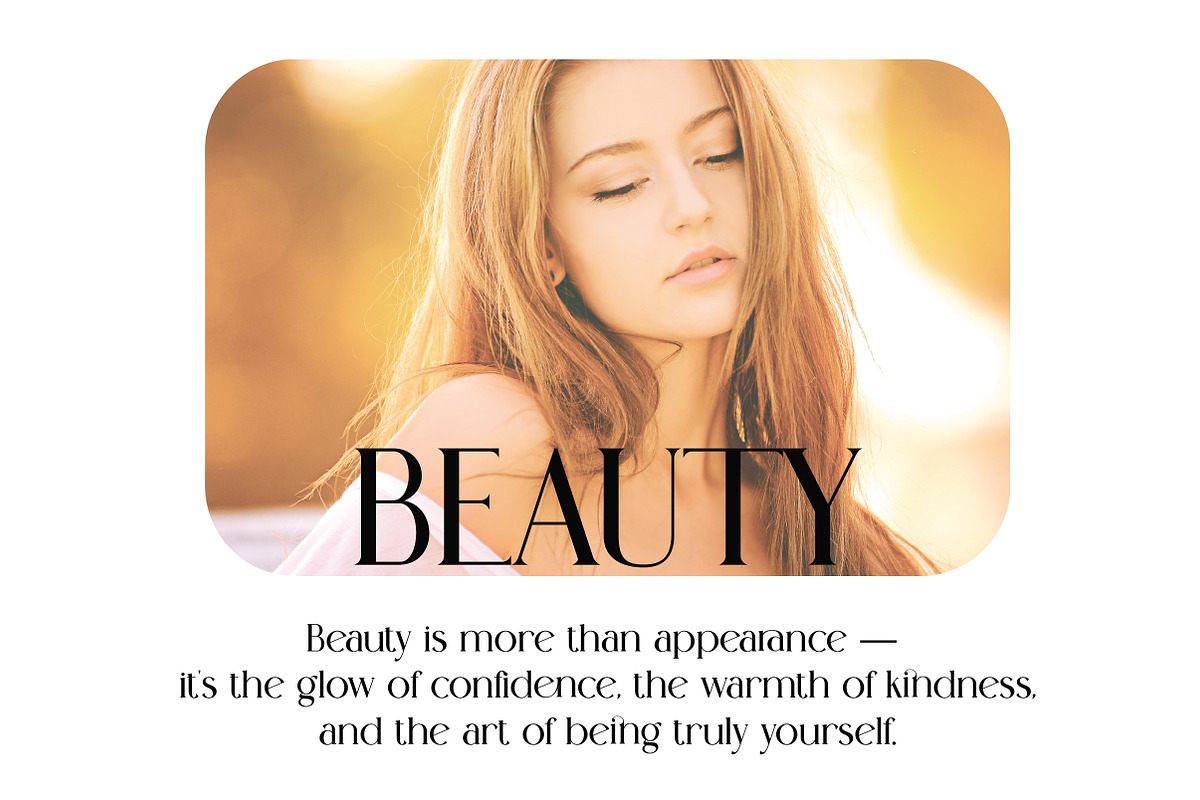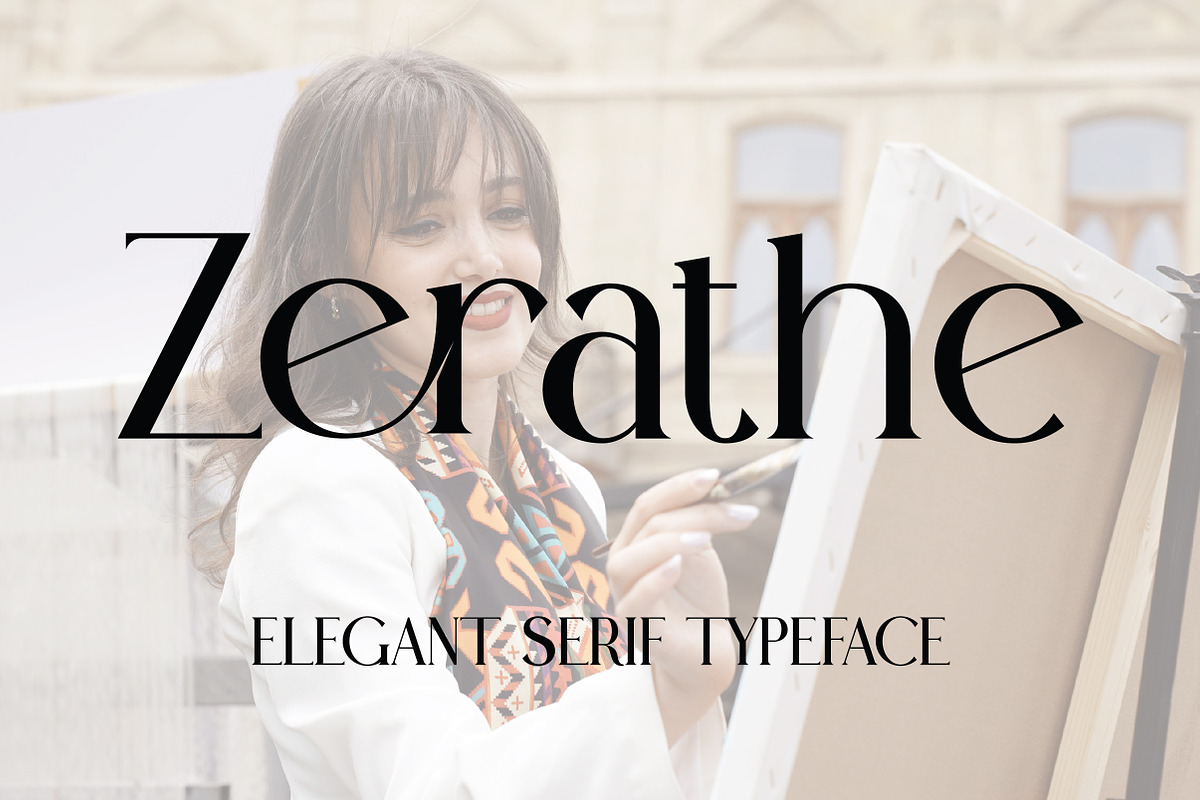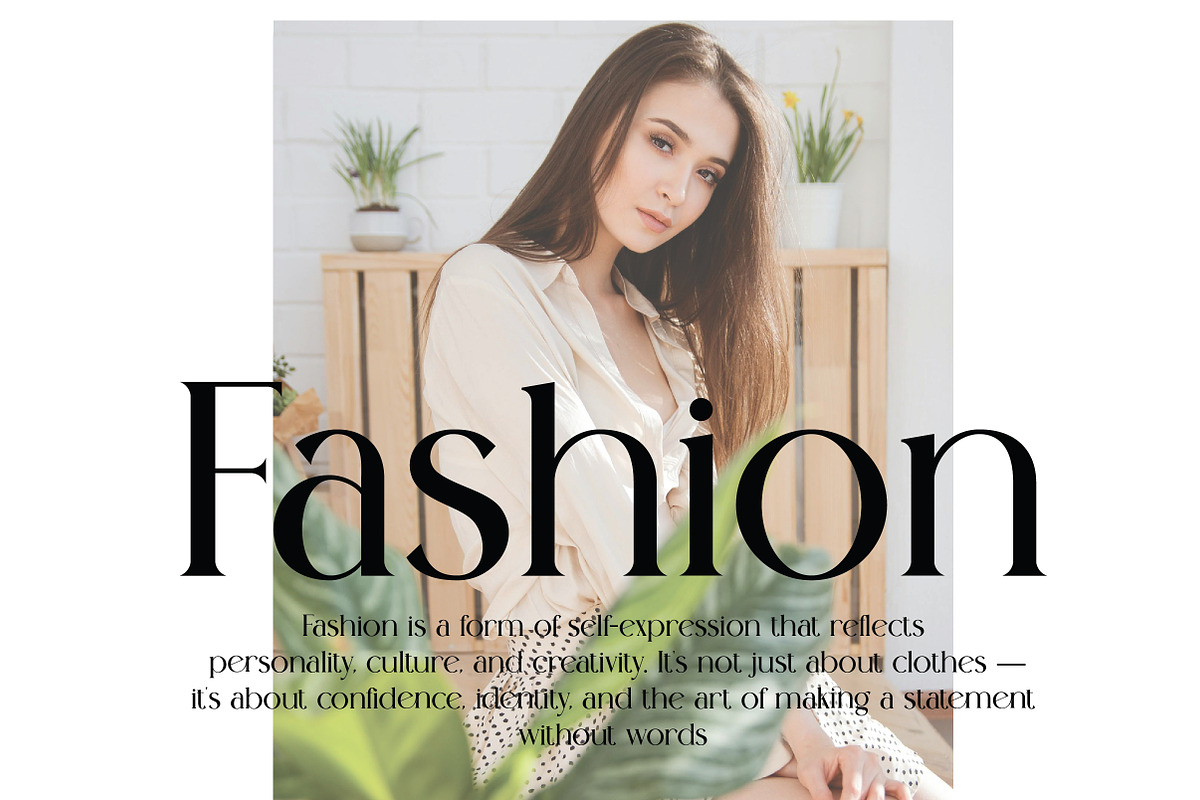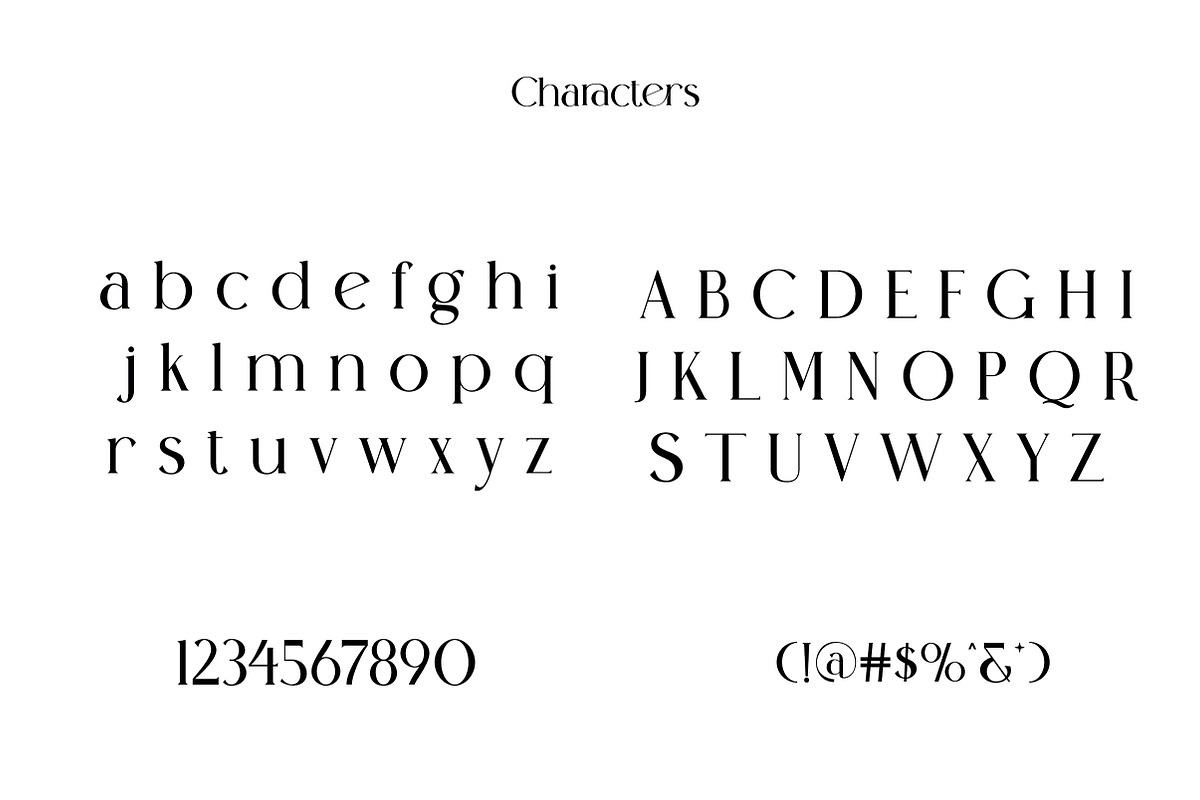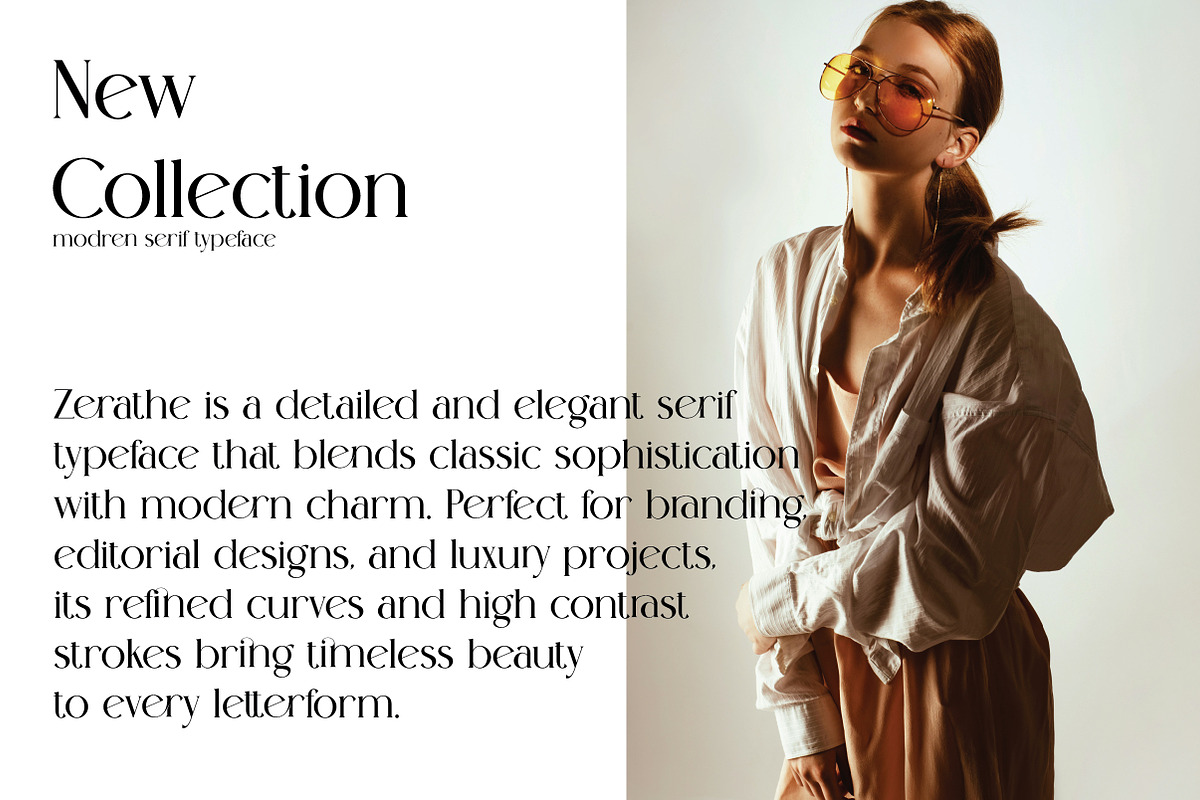
Zerathe | Elegant Serif Typeface
Zerathe is a graceful and versatile serif typeface with a clean, contemporary aesthetic. The Regular style features refined curves, balanced proportions, and strong legibility—making it an excellent choice for branding, editorial design, logos, packaging, and digital content.
With its timeless charm and professional appearance, Zerathe adds a sophisticated touch to any design. It performs beautifully in both headlines and body text, offering flexibility for modern creatives who value clarity and style.
Uppercase & lowercase characters
Multilingual language support
Zerathe is a must-have serif font for designers seeking elegance, readability, and modern design harmony.